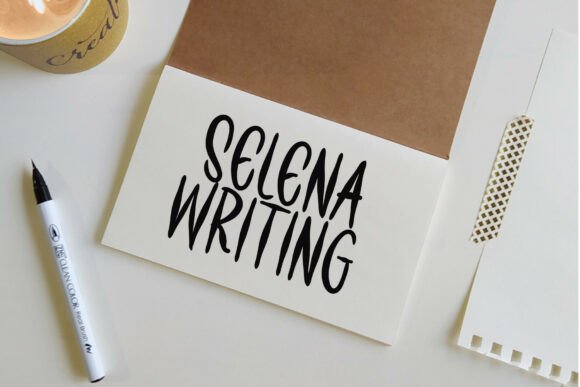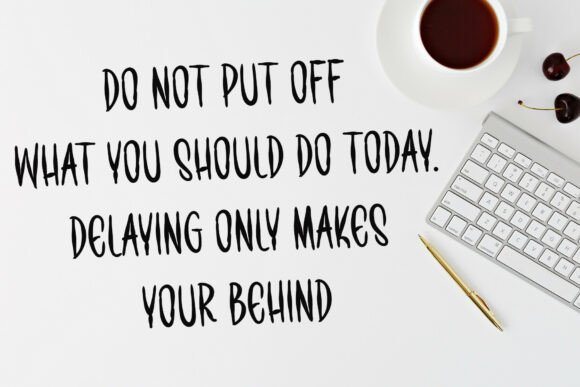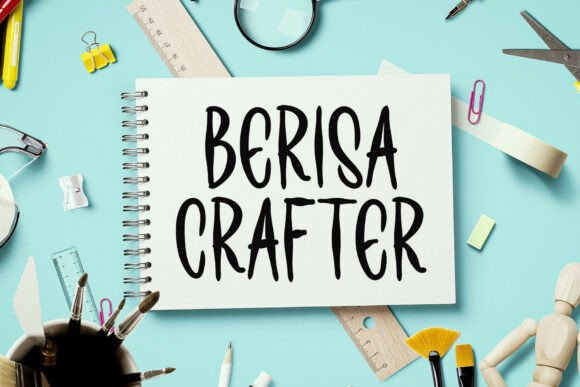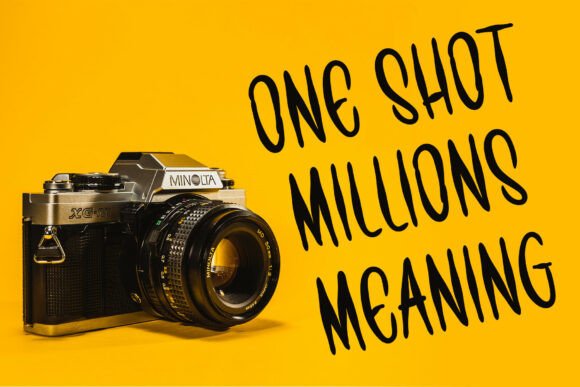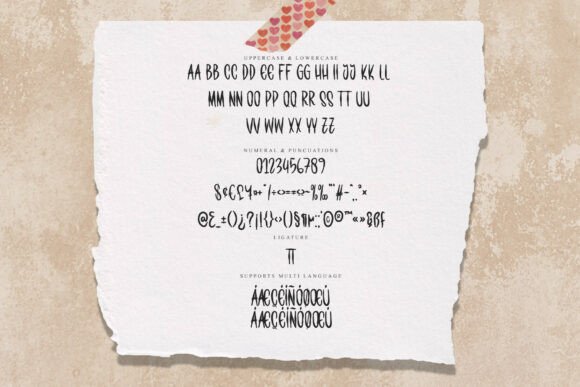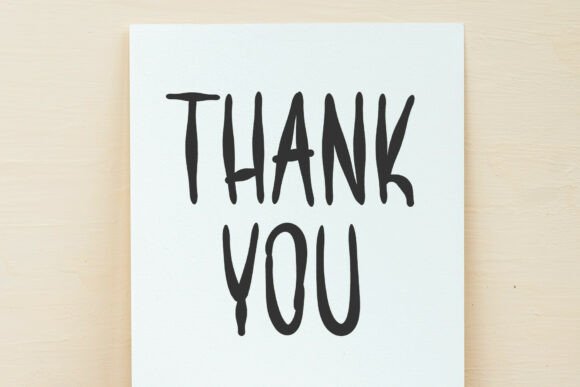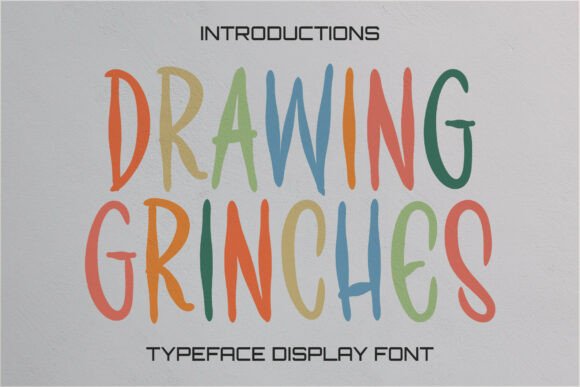
Introducing Drawing Grinches Font: Elevate Your Designs with Elegance and Personality
In the world of typography, fonts play a crucial role in conveying the tone and aesthetic of a design. For designers and crafters looking to add a touch of sophistication and uniqueness to their projects, the Drawing Grinches font is an exceptional choice. This beautifully crafted display handwriting font seamlessly blends elegance with a modern, artistic touch, making it perfect for those who want to elevate their designs with a sense of class and personality.
What Makes Drawing Grinches Font Stand Out?
Drawing Grinches font is distinguished by its flowing strokes and well-balanced curves, which create a sophisticated yet approachable feel. This harmonious blend of elegance and modernity makes it an ideal font for a wide range of design applications, from luxury branding and high-end product packaging to stylish stationery and creative digital content.
Key Features of Drawing Grinches Font
- Elegant and Modern Design: The font boasts a unique blend of classic elegance and modern artistic flair, making it versatile for various design needs.
- Flowing Strokes and Balanced Curves: The carefully crafted strokes and curves provide a smooth and sophisticated look, enhancing the readability and aesthetic appeal of any text.
- Sophisticated yet Approachable: The font’s design strikes the perfect balance between being upscale and friendly, making it suitable for luxury brands and personal projects alike.
- High Versatility: Drawing Grinches font can be used across different mediums, including digital platforms, print materials, and handmade crafts.
Applications of Drawing Grinches Font
The versatility of Drawing Grinches font makes it suitable for a variety of design projects. Here are some of the key areas where this font can make a significant impact:
- Branding and Logo Design: Create a lasting impression with a sophisticated logo that embodies your brand’s elegance and personality.
- Stationery and Invitations: Add a touch of class to your greeting cards, invitations, and personal stationery.
- Packaging Design: Elevate your product packaging with a font that communicates luxury and quality.
- Digital Content: Enhance your website, blog, or social media graphics with a stylish and modern font that captures your audience’s attention.
- Crafting and DIY Projects: Perfect for crafters, the font can be used in handmade cards, journals, and other creative projects.
Tips for Using Drawing Grinches Font Effectively
To maximize the impact of Drawing Grinches font in your designs, consider the following tips:
- Pair with Complementary Fonts: Combine Drawing Grinches with simpler fonts to create contrast and hierarchy in your design.
- Adjust Font Sizes: Use varying font sizes to emphasize key messages and create visual interest.
- Experiment with Colors: While the font itself is elegant, experimenting with different colors can further enhance its appeal and suitability for your design.
- Consider Line Spacing: Ensure adequate line spacing to maintain readability, especially in longer texts.
Drawing Grinches font is a versatile and stylish addition to any designer’s toolkit. Its unique blend of elegance and modernity, coupled with its sophisticated yet approachable feel, makes it perfect for a wide range of applications. Whether you’re working on a luxury brand project, creating handmade crafts, or designing digital content, Drawing Grinches font can help you achieve your desired aesthetic with ease. Explore the possibilities of this beautiful font and elevate your designs to new heights of elegance and personality.
With Drawing Grinches font, you don’t just choose a typeface; you add a statement piece to your design that communicates class, creativity, and a keen sense of style. Make your designs stand out and leave a lasting impression on your audience with this exceptional display handwriting font.